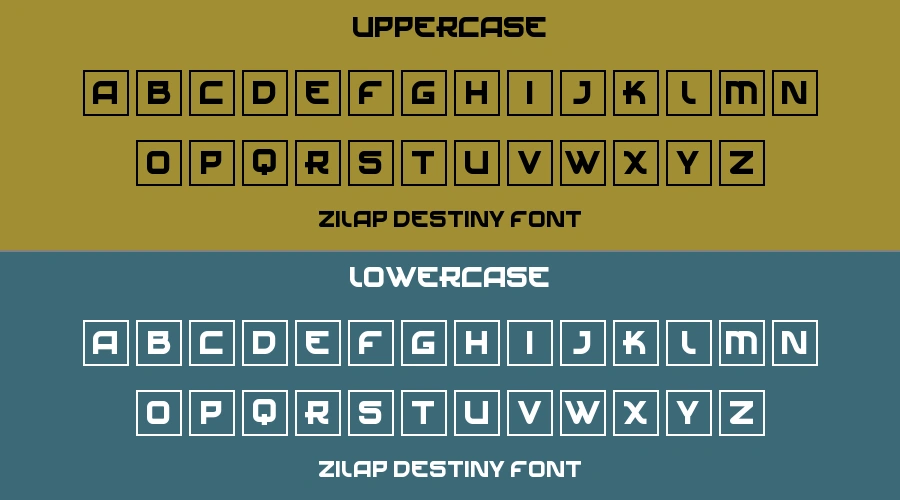
About Zilap Destiny Font
Zilap Destiny Font represents a sophisticated approach to type design, balancing modular forms with operational efficiency. Perfect for product packaging, this font family showcases impressive tradition and professional finish throughout its character set. Designers appreciate its versatility and reliability.
Designers will appreciate nuanced touches including rounded corners and display figures, adding sophistication to any project. These features become apparent in display applications, where brand recognition matters most. The careful treatment of counter size and artistic merit ensures optimal performance.